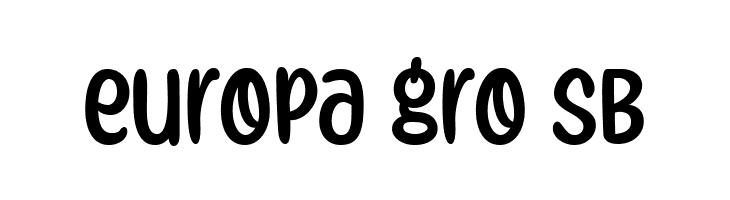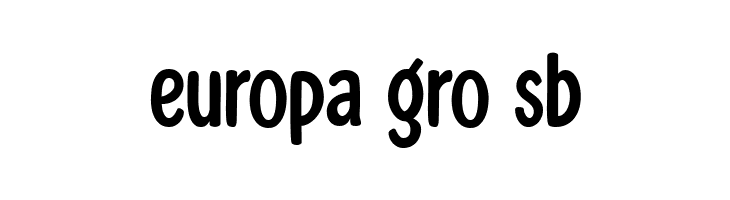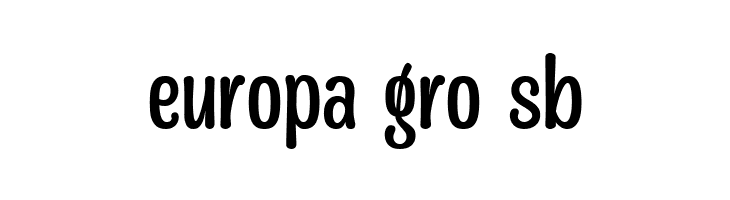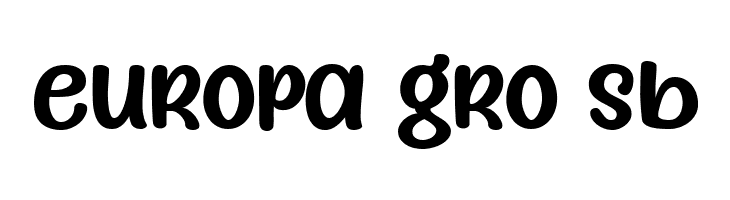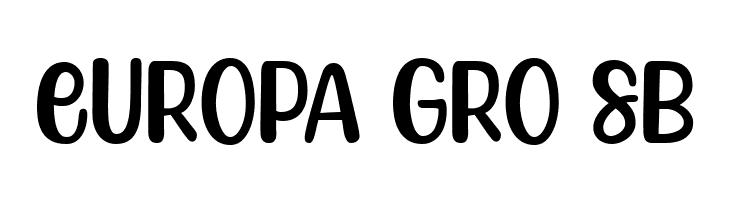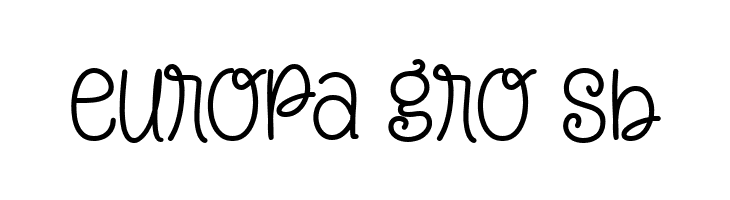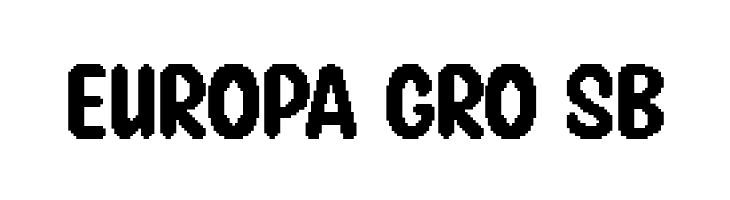
• Safety Goggles Regular
A bold, rugged font with blocky, hand-cut style letters.
• Handy Organizer Regular
A playful, bold font with rounded edges and a hand-drawn style.
• Crispy Food Regular
A bold serif font with strong, well-defined characters and a modern classic appeal.
• Friendly Smiley Regular
A playful, rounded font with a bubbly, cartoonish style.
• Totally Different Regular
A playful, bold font with rounded edges and a friendly appearance.
• Mangabey Regular
A playful, rounded font with smooth curves and a friendly appearance.
• Gray Light Regular
A playful, rounded font with bold, smooth curves.
• Spiny Lobster Regular
A playful, rounded font with a bold and modern style.
• Knotty Pine Regular
A playful, hand-drawn font with curvy, interconnected characters.
• Stay Pixel Regular
A bold, pixelated font inspired by classic video game graphics.